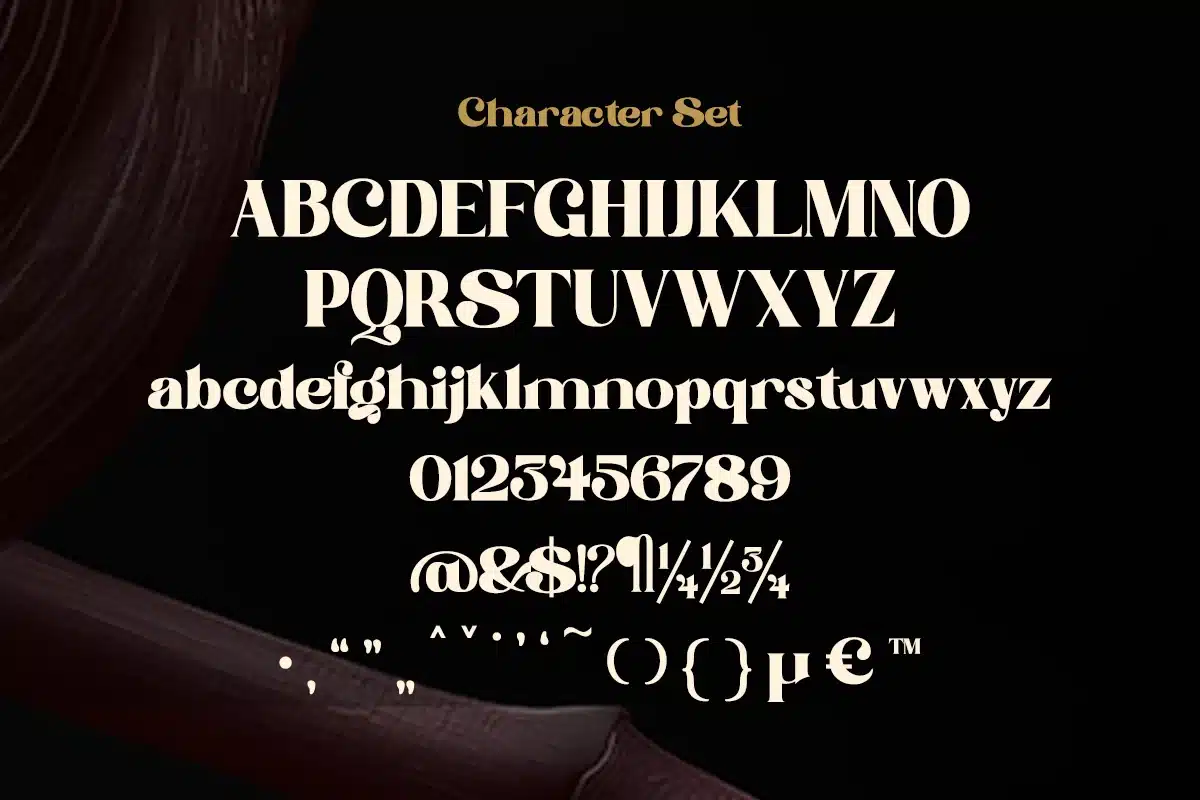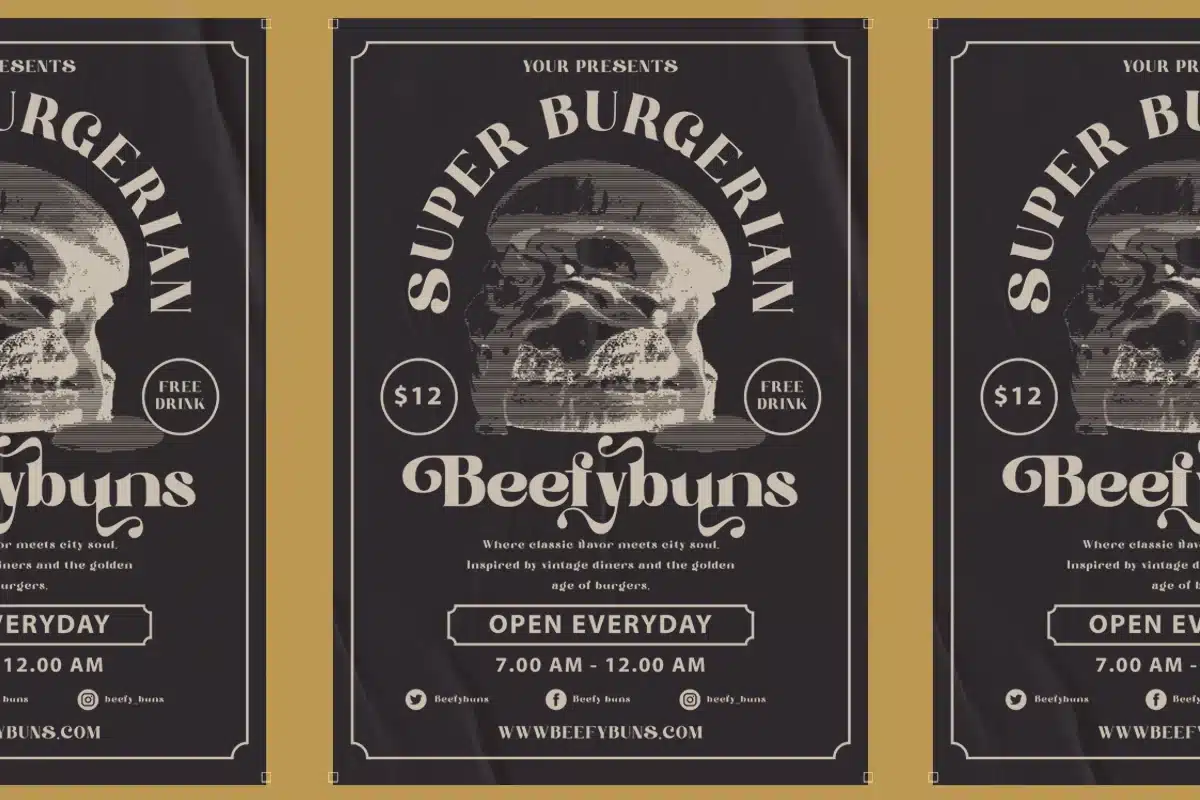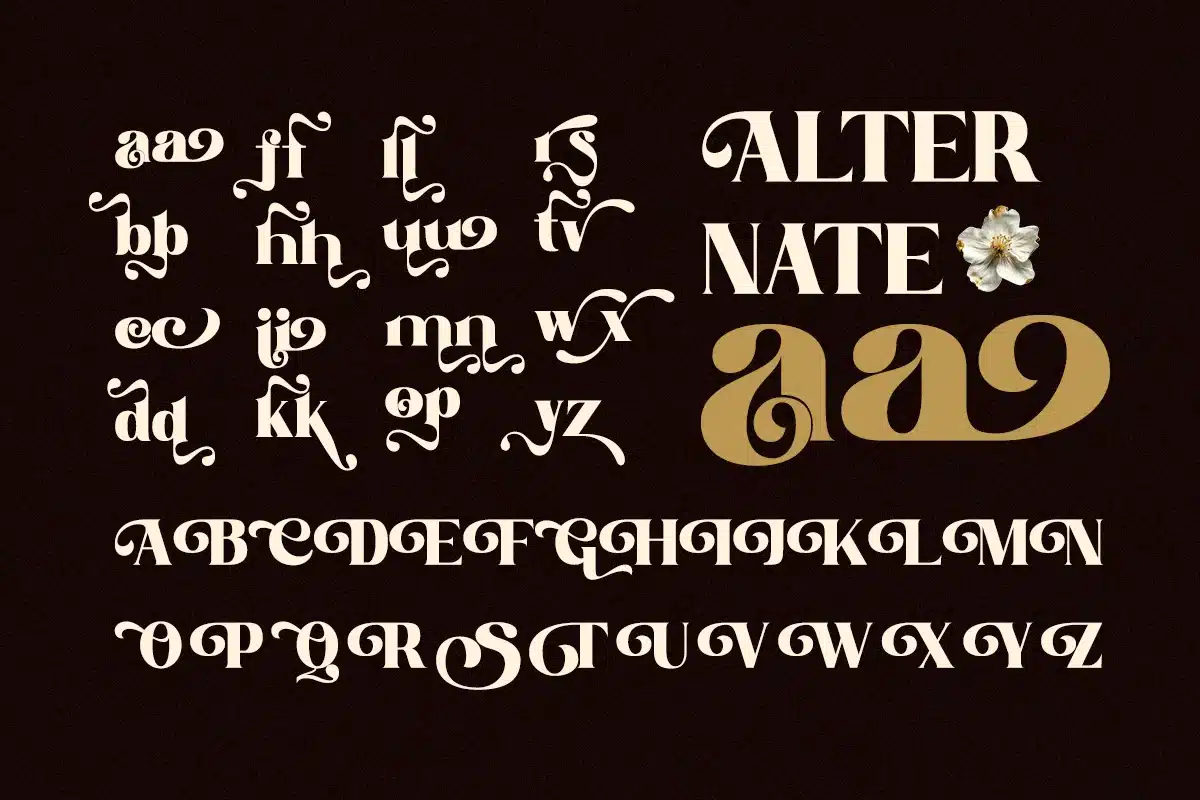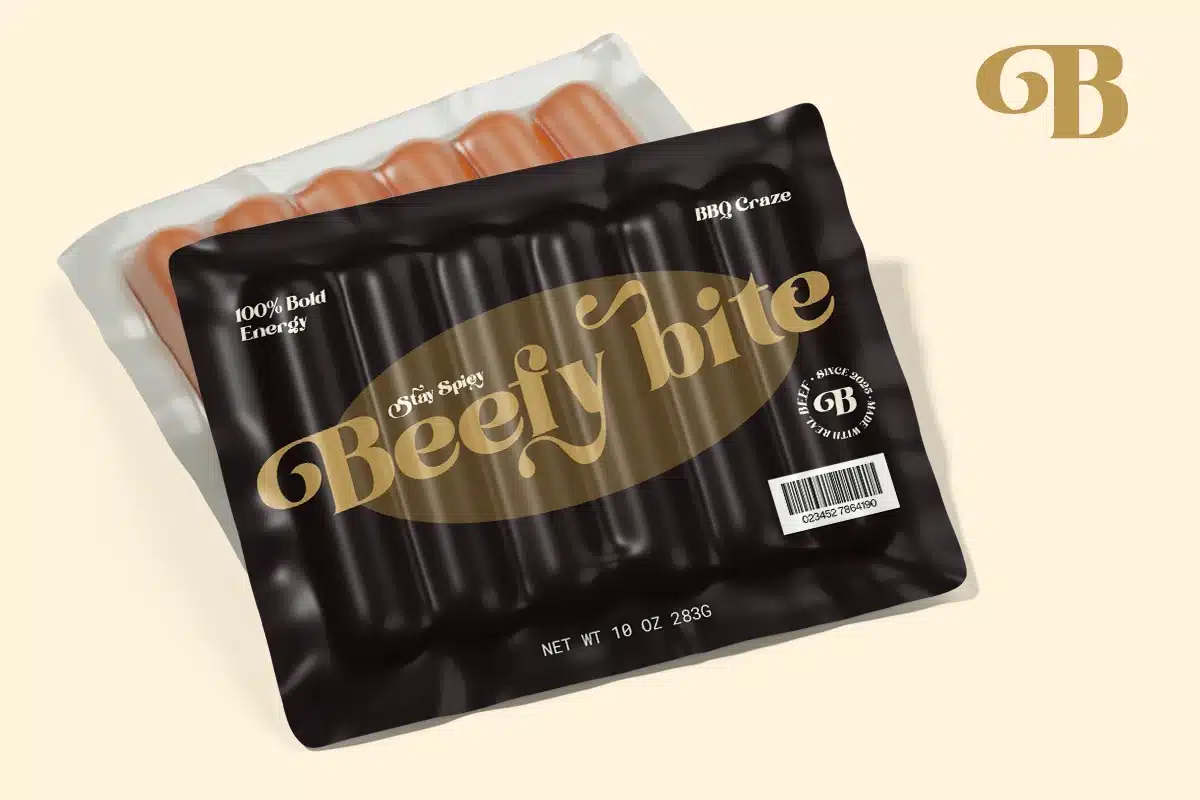
Talspire – Elegant Display Serif Branding Font
Talspire is an elegant display serif font crafted to deliver strong visual presence and artistic sophistication.
Inspired by organic forms and high-contrast typography, Talspire is designed for luxury branding, editorial headlines, and expressive visual identities.
Its sculptural curves and refined letterforms make it ideal for designers who want drama, elegance, and clarity in one serif font.
- Regular & Italic
- Uppercase & lowercase
- Artistic alternates & ligatures
- High-contrast letterform
Luxury branding, editorial headlines, fashion campaigns, beauty visuals, magazine covers, posters, art direction, and premium packaging.